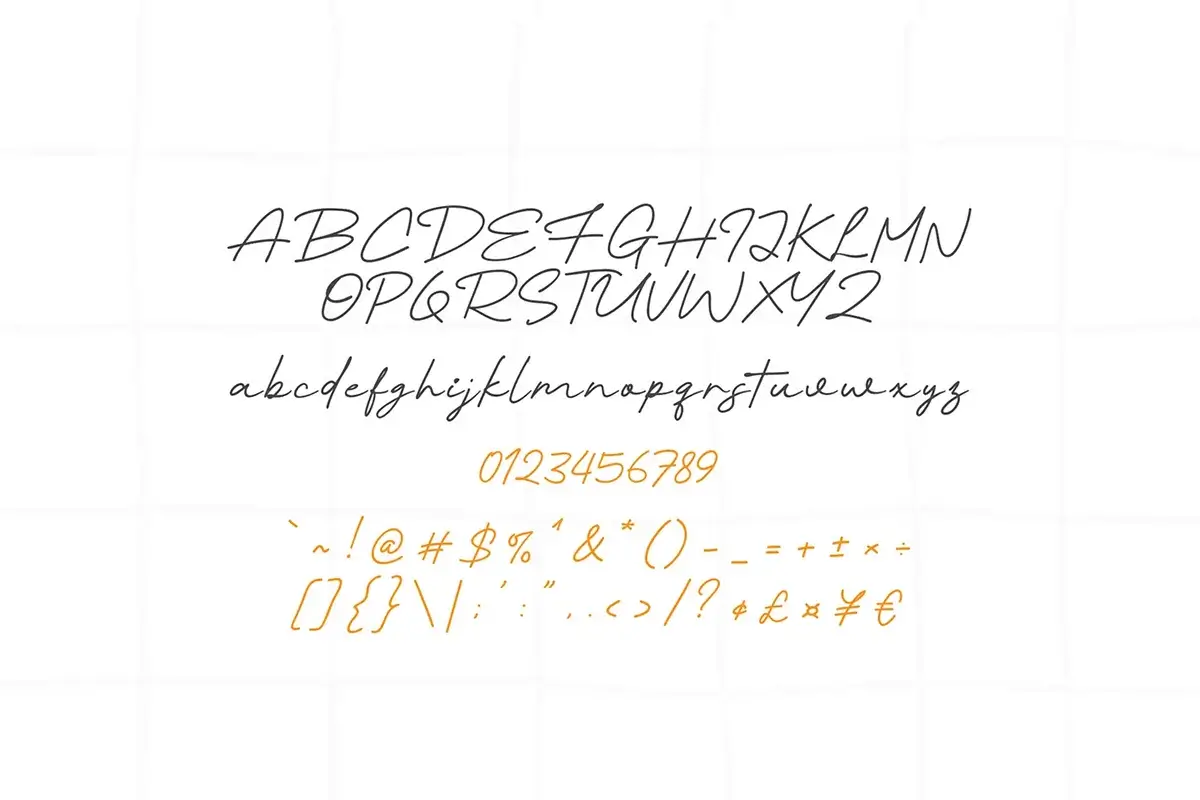
High Empathy Font – Script Typeface
The High Empathy font is a smooth and beautiful script typeface that feels like a handwritten note from someone who truly understands you.
It has graceful curvature and a natural flow, perfect for adding a personal, heartfelt touch to your designs. Whether you’re working on quotes, branding, invitations, branding, posters, wedding invitations, titles, t-shirts, letterheads, signage, labels, badges, this font brings a cool, stylish charm that stands out especially on clean, minimalist backgrounds.